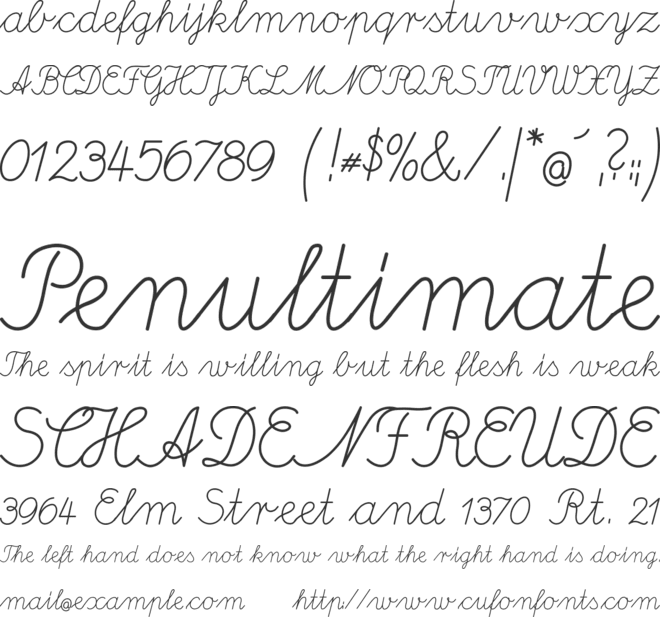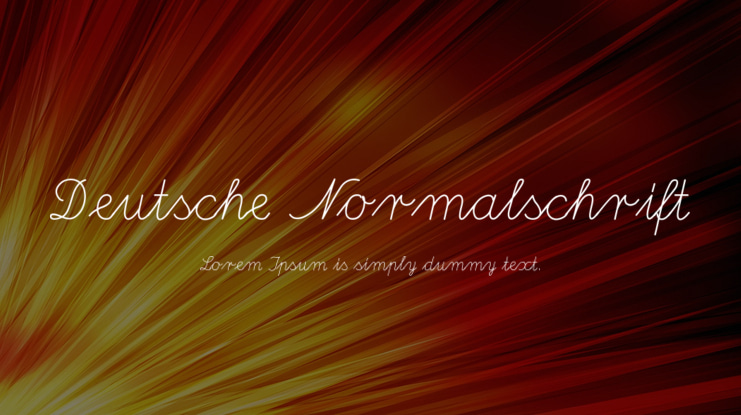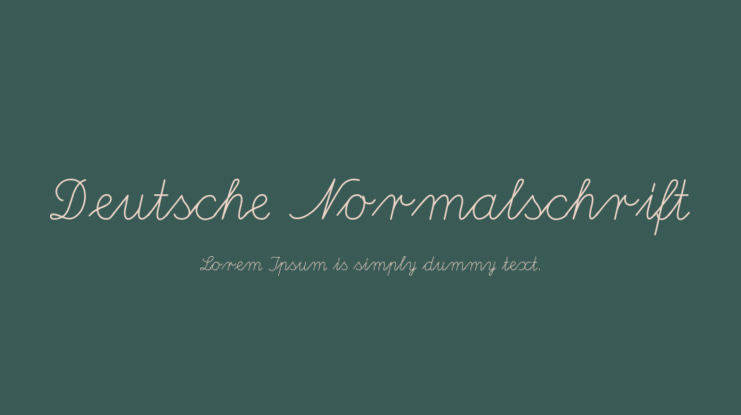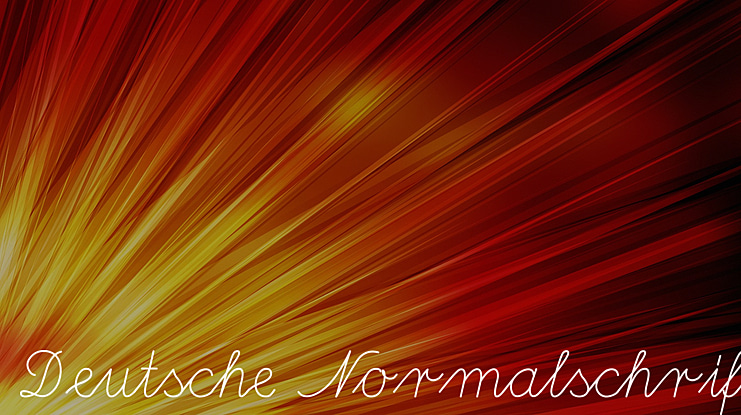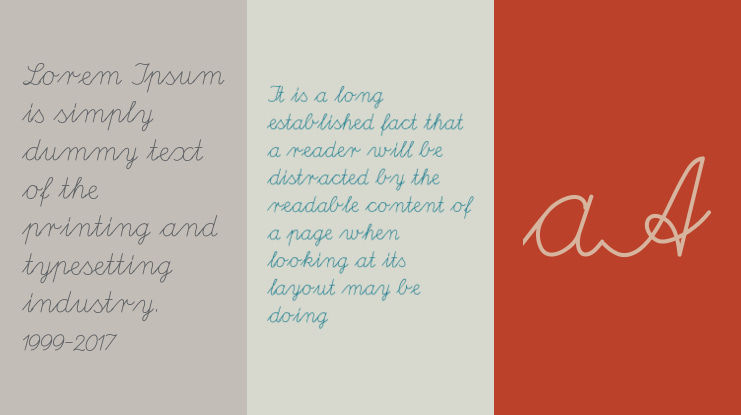
Google Translate says:The German normal type was the first Latin school sole output specification under the Nazi decree that the beginning of the end of Kurret-German Fraktur script and in print. It is the direct precursor of the Latin Ausgangsschift, which for many years was the sole Thesis in West Germany and the also I have learned to write. I have walked this Scripture as accurately as possible in a computer font. This of course brings a problem: The letters have two crosspoints, down near the GHrundlinie and above the x-height close to b, o, r, v, and w. I will now tell everyone: But it's gint Open Type "and this is true in principle, but unfortunately, the currently supported almost exclusively with expensive professional software. For the textbook publisher that would certainly OK, but the font should just work on low-cost software without OpenType support, and for that I have just found a trick: You install two fonts, schreiubt first normal marrow profiled some Anfangsbuchstabenm , such a, d, g, q, m and n sowier Buchtaben the direction b, o, r, v and w, and switches it on in italics.Copyright (c) 2013 by Peter Wiegel. Open Font under Terms of following Free Software Licenses:GPL (General Public License) with font-exception and OFL (Open Font License